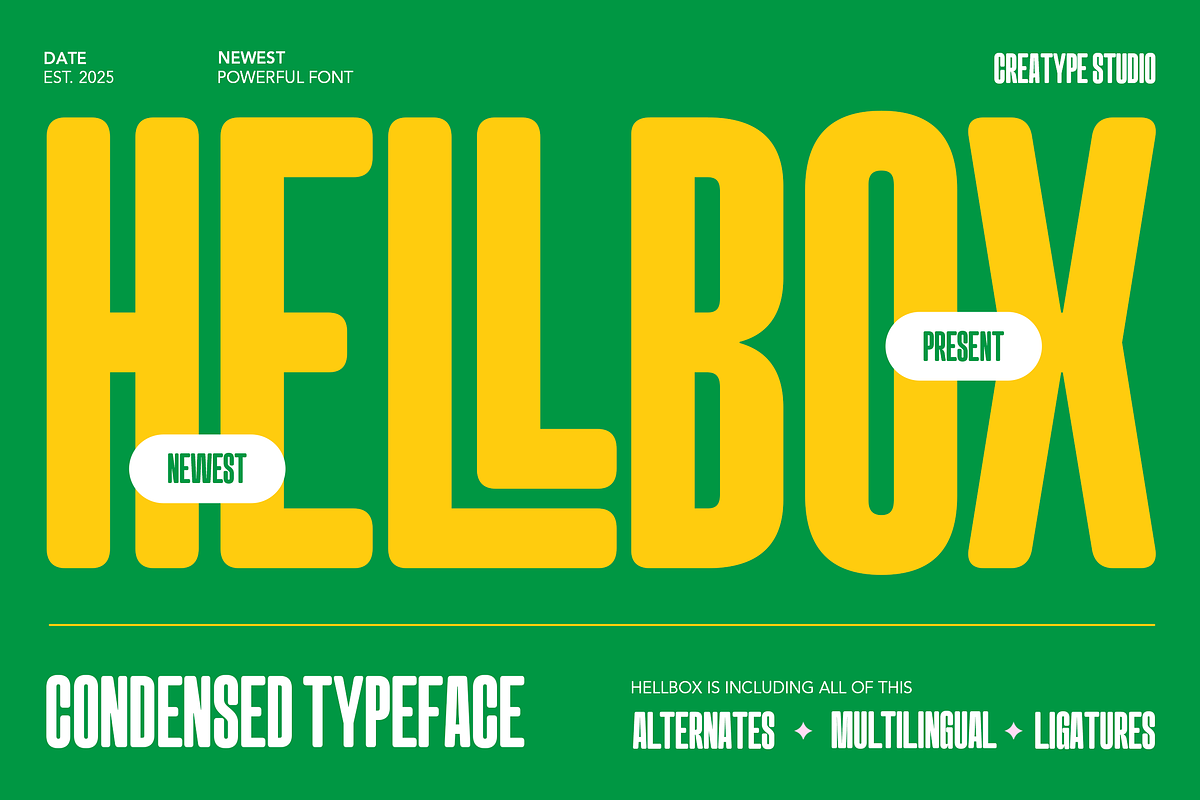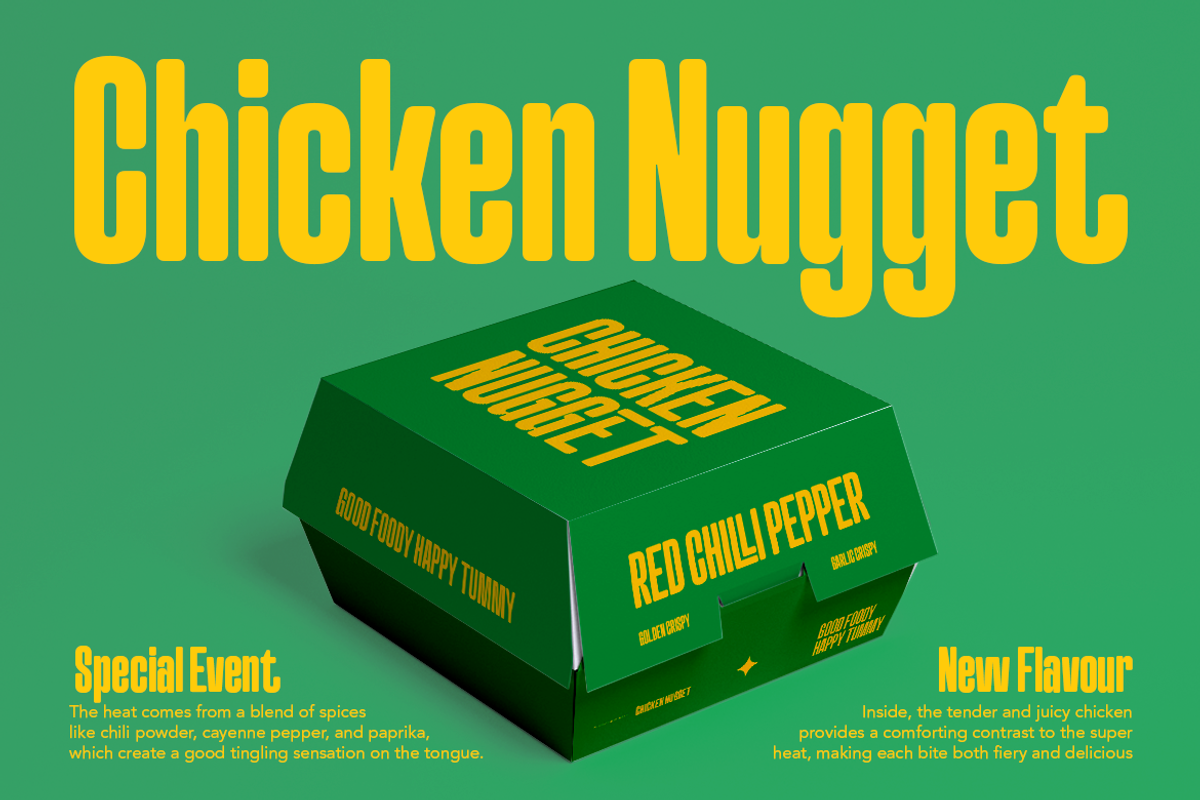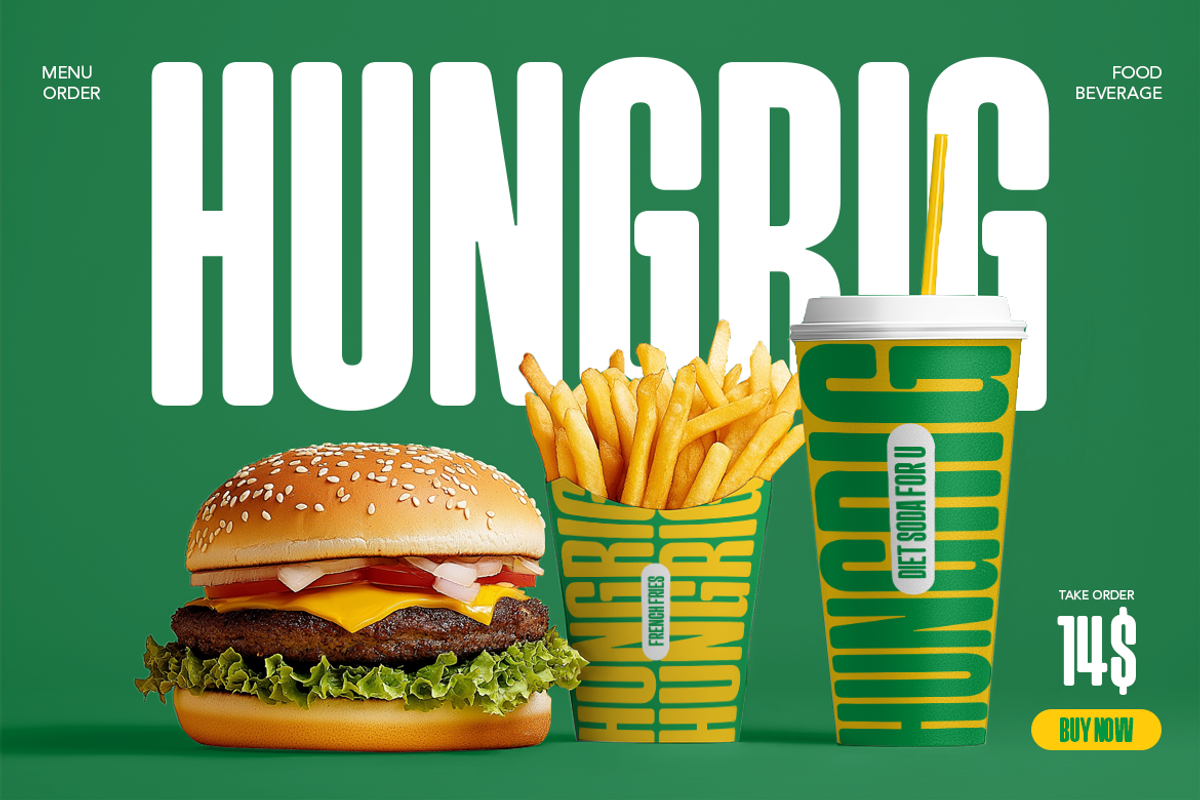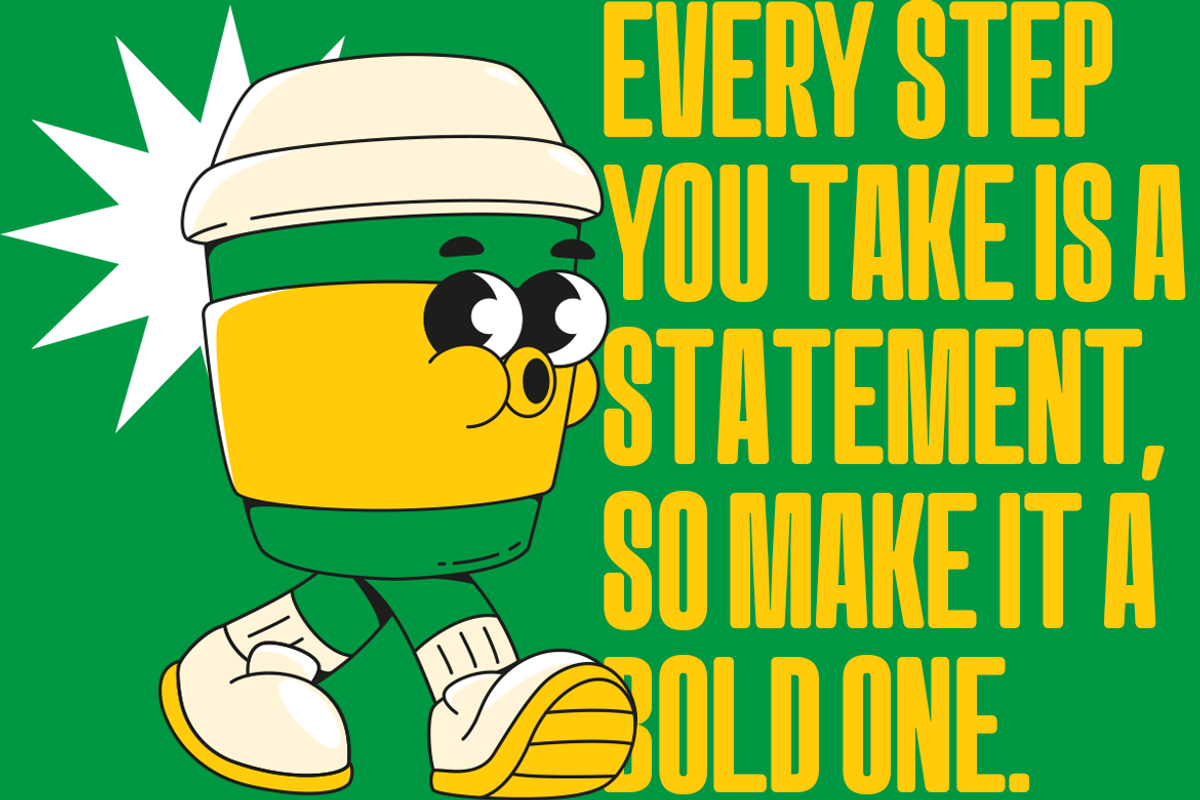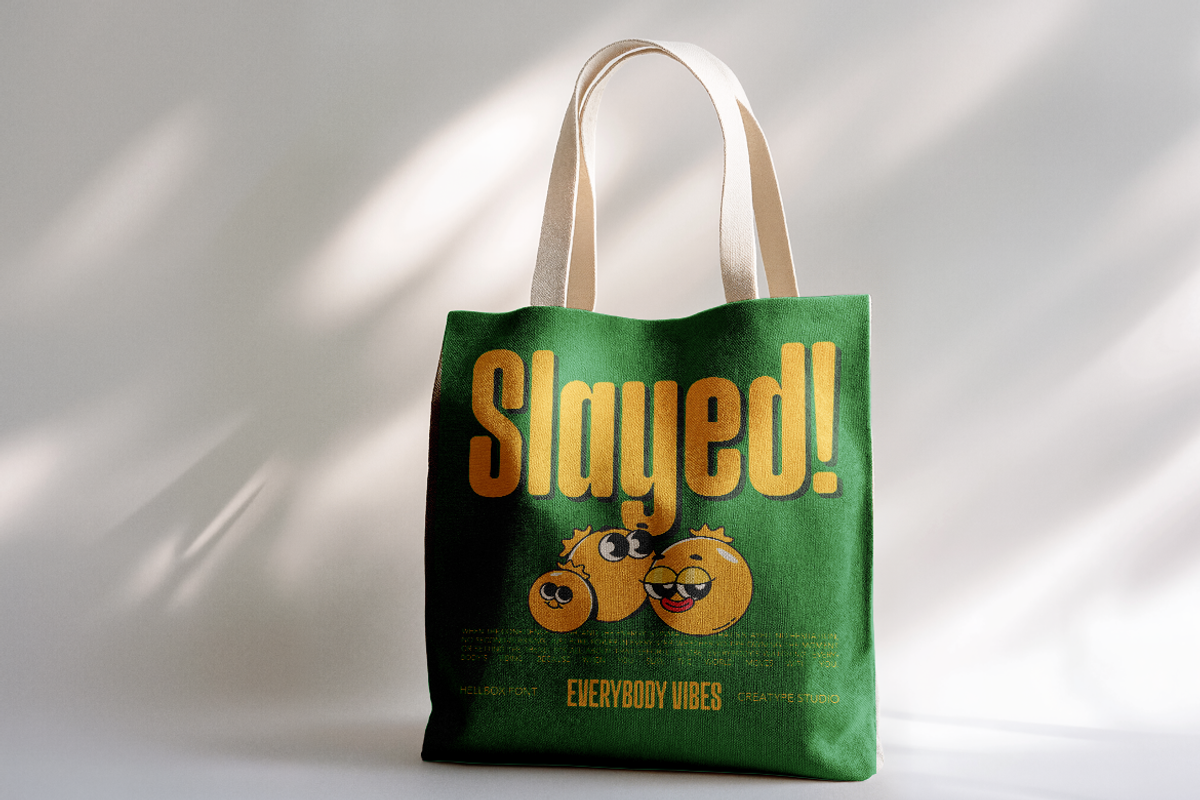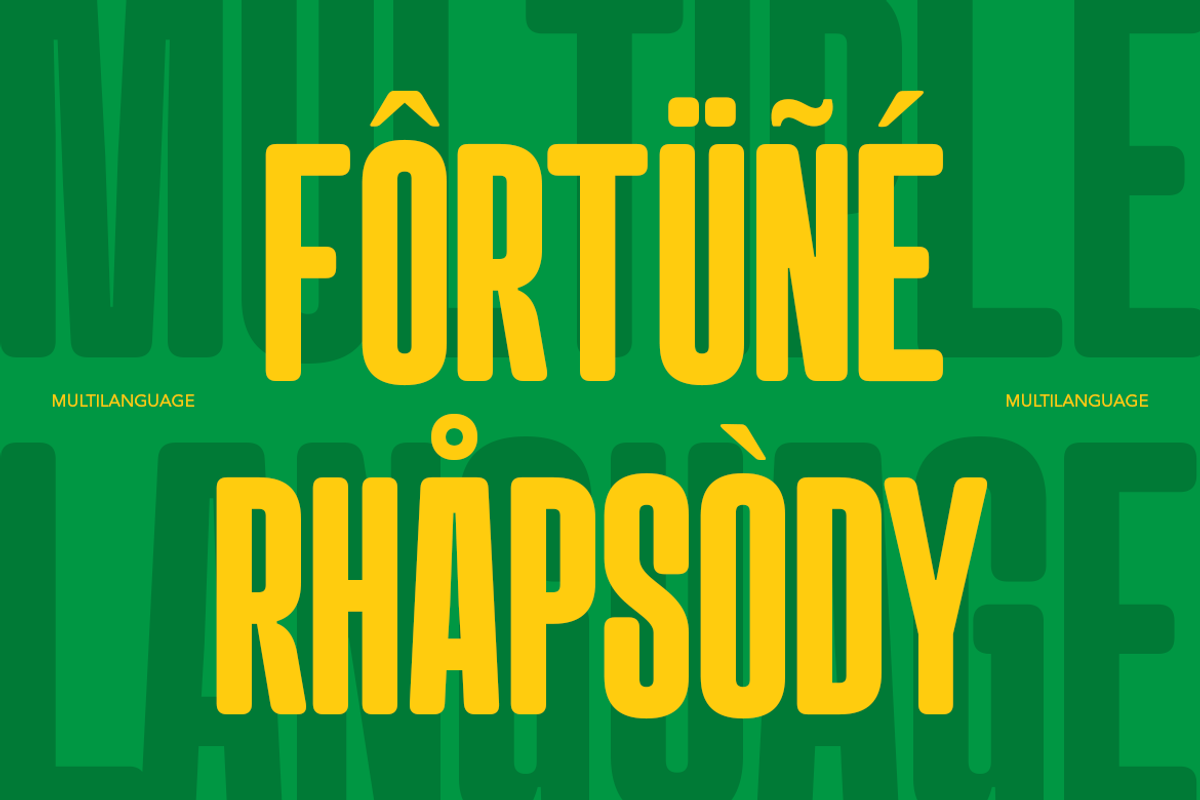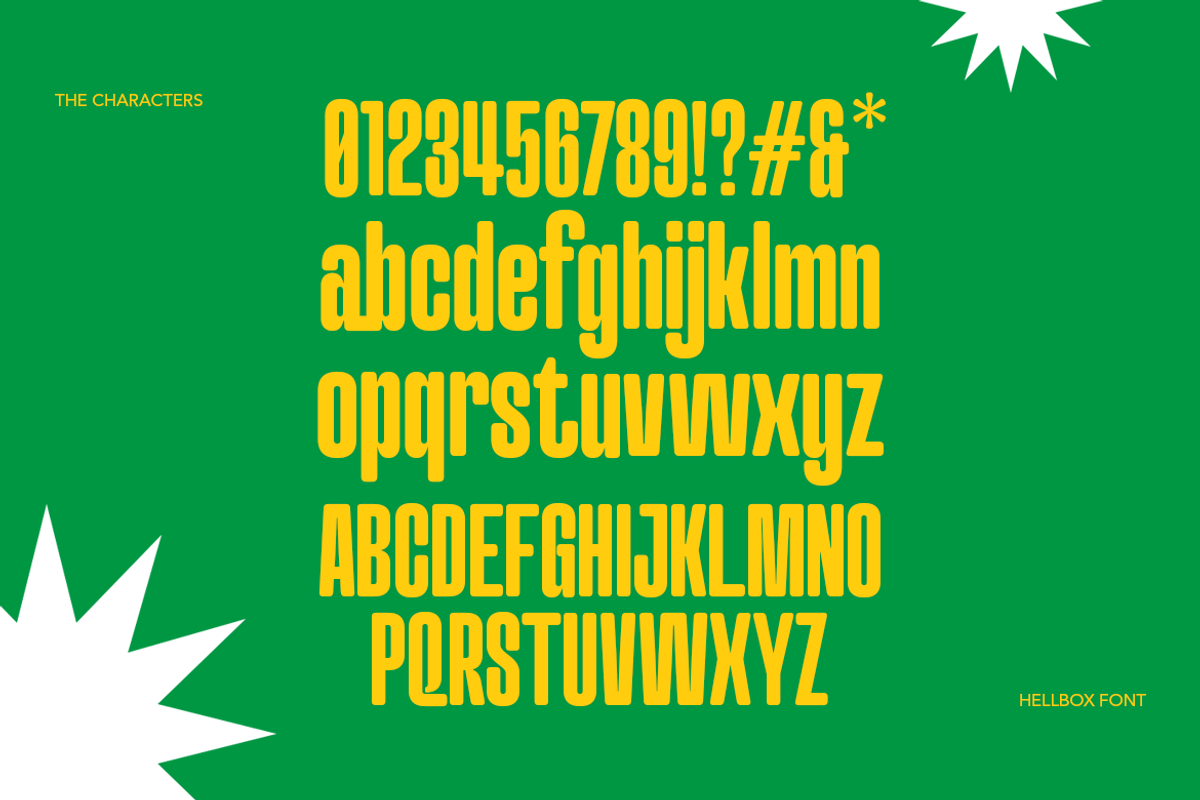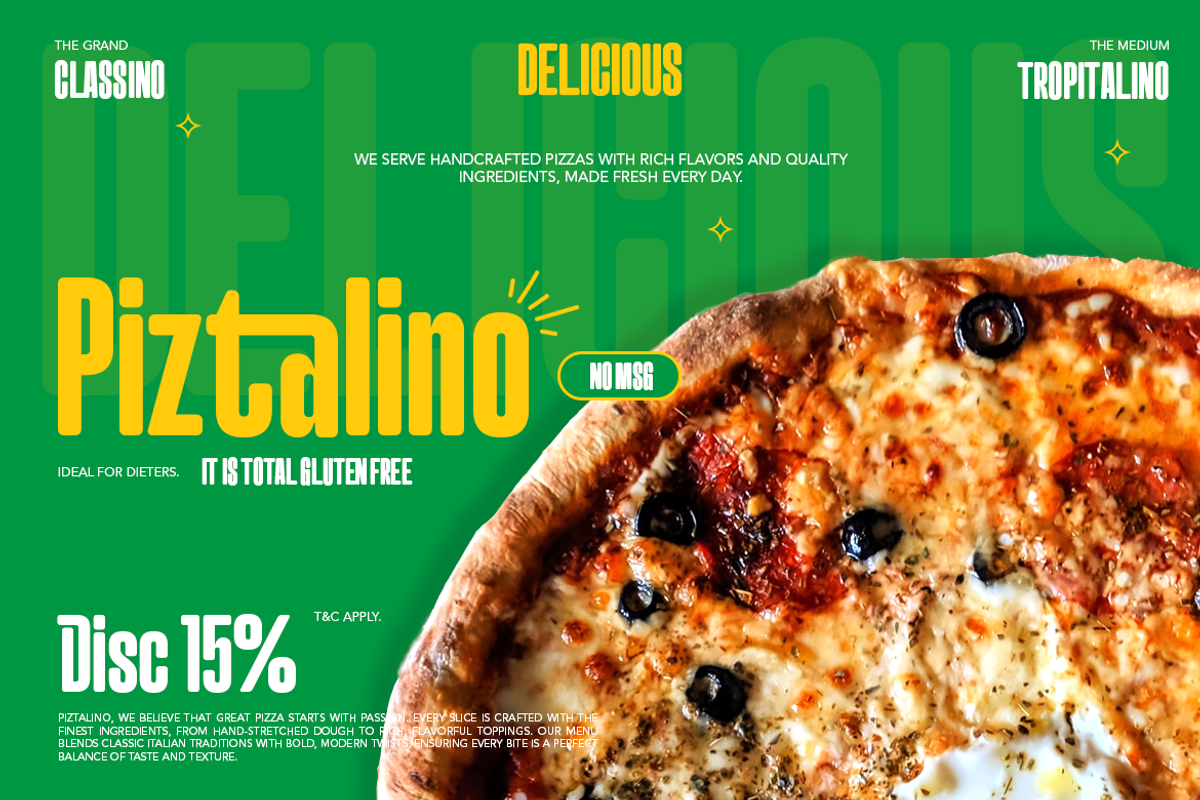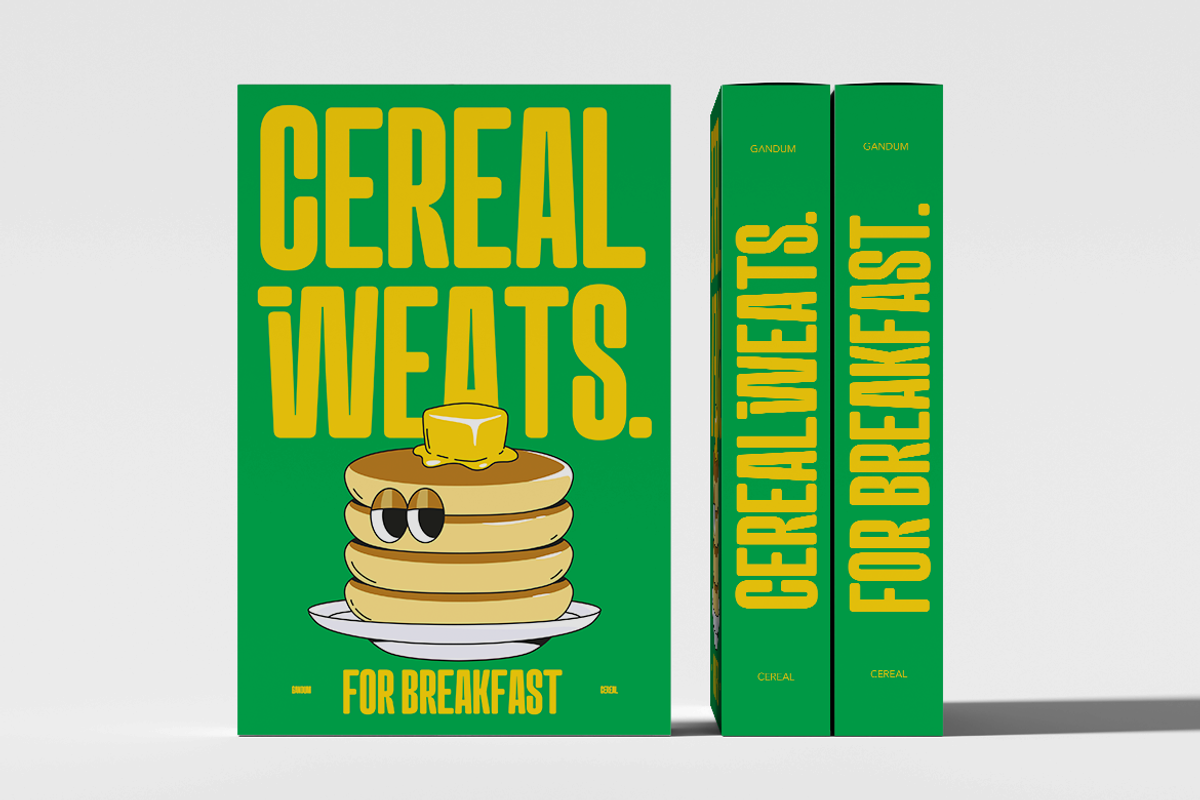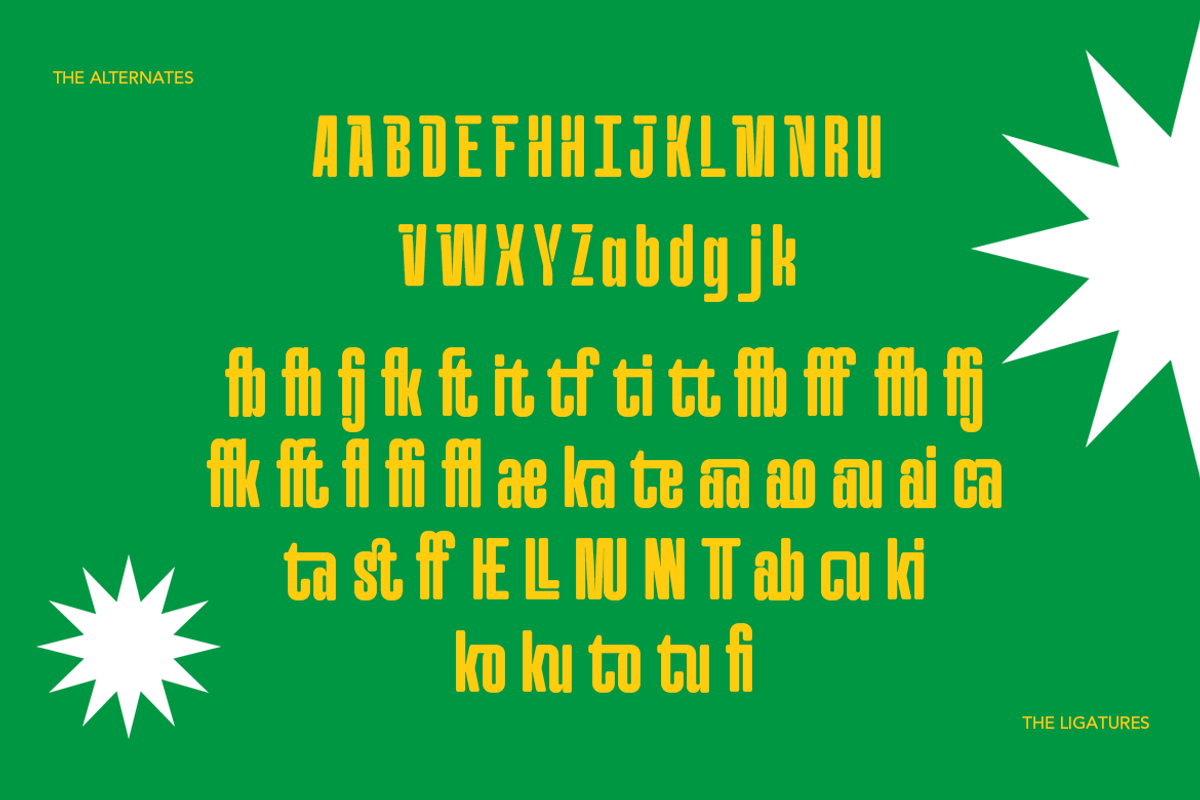
Hellbox Bold Condensed Display Sans
Hellbox is a punchy, ultra-condensed display sans built for big moments in tight spaces. With tall rhythm, rounded corners, and smooth monoline strokes, it lands like a headline and reads like a chant—clean, confident, and unmistakably modern.
Think stadium energy meets retro poster charm. Hellbox compresses the message without squeezing out personality, making short words feel huge and long titles stay neat. Alternates and ligatures add that custom-brand polish; multilingual support keeps your voice global.
- Ligature & Alternate